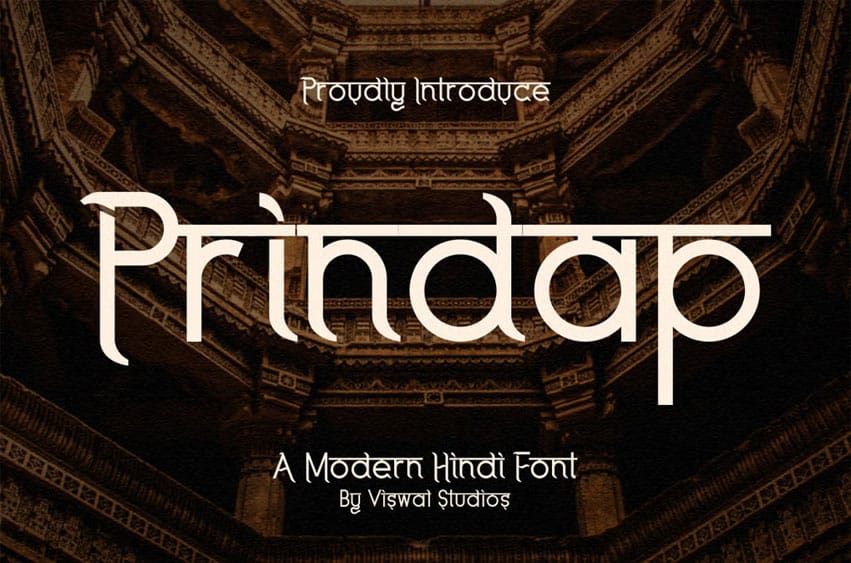
Prindap Font Is A Hindi Display Font. Can Make It Easier To Convey The Message In Your Design. Font Is Suitable For Logo, Labels, Badge, Branding, Magazine, Poster, Title, Gigs, Covers And Etc.
Our Fonts Have Uppercase & Lowercase, Numeral & Punctuation, And Opentype Features. For Amazing Designs You Can Mix With Other Fonts As A Complement.